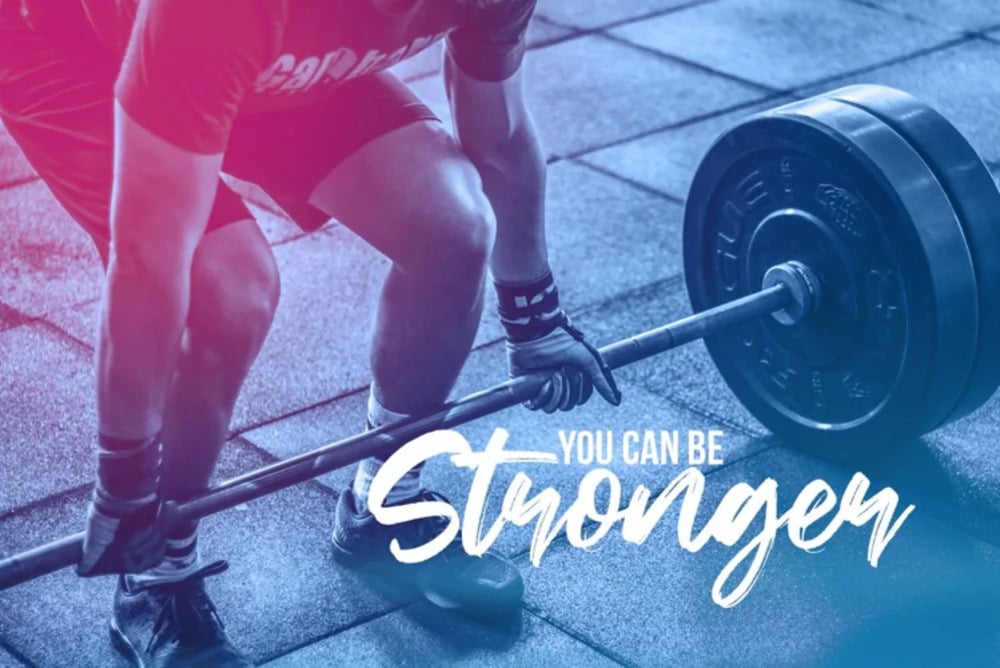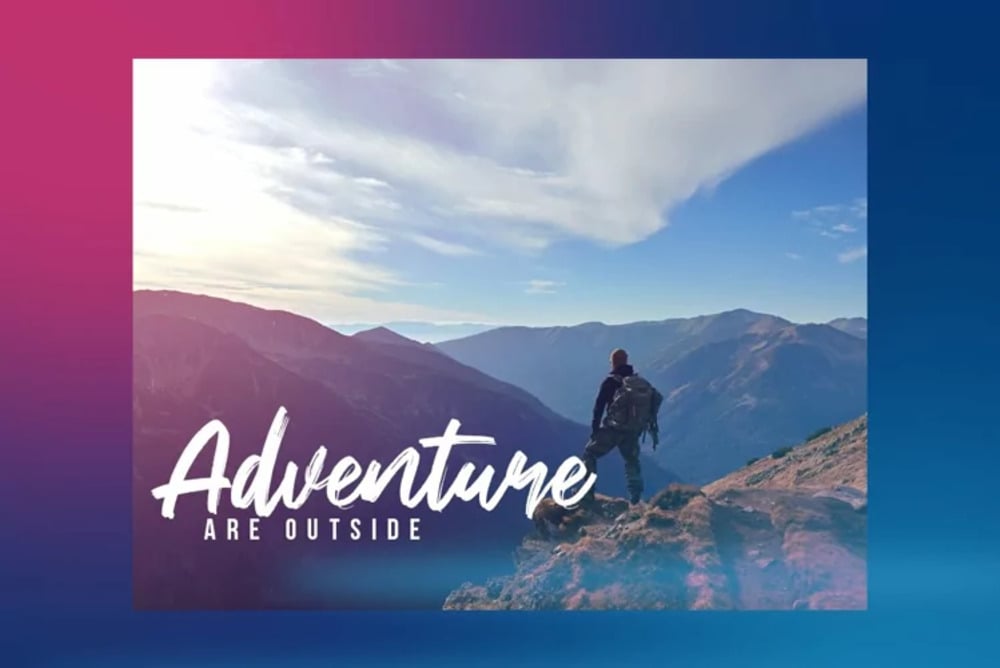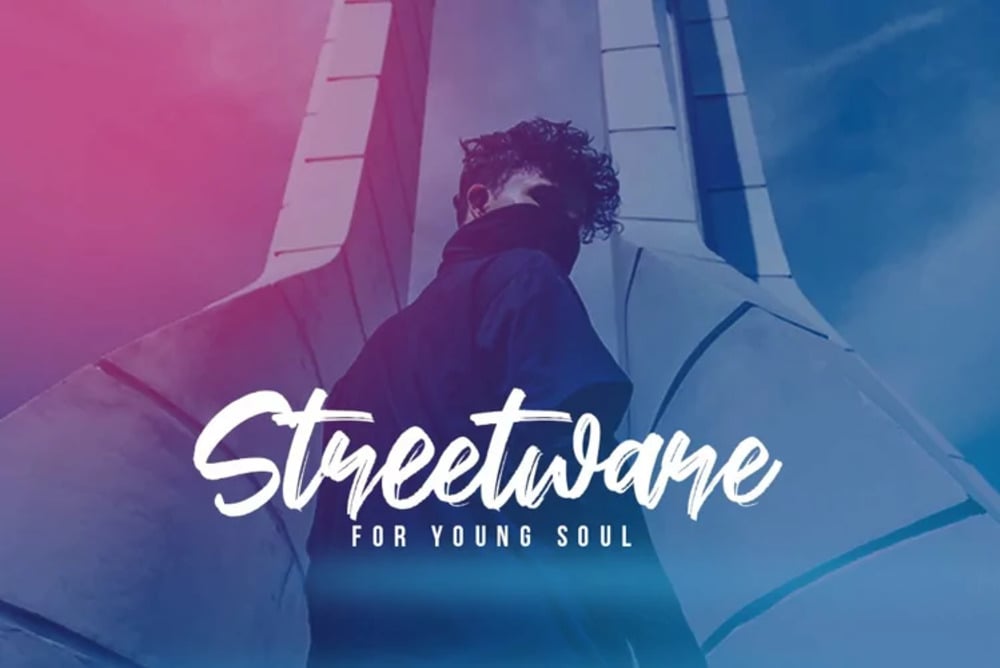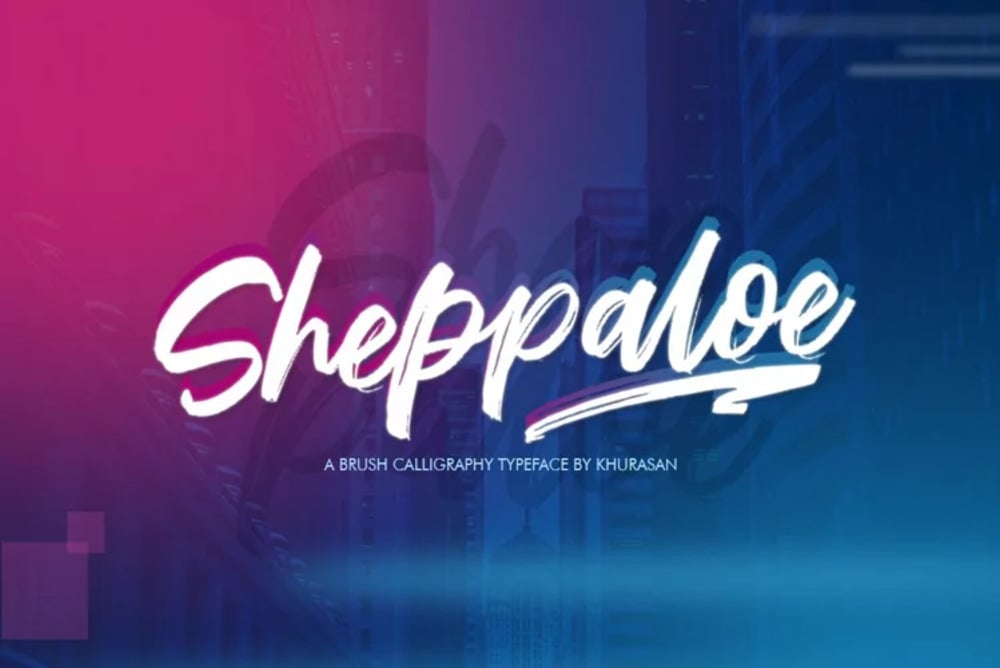
Sheppaloe Font
Sheppaloe is a stylish and elegant script font with flowing curves and refined strokes, exuding sophistication and charm. Perfect for branding, invitations, and luxury designs, it blends modern calligraphy with a touch of vintage allure. Its smooth, handcrafted details create a graceful aesthetic, making Sheppaloe an ideal choice for projects that demand elegance and distinction.